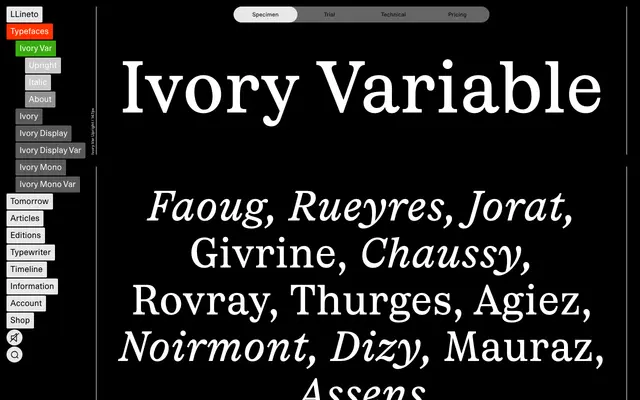
LL Ivory Var
Lineto · Aurèle Sack · 2023
A serif family by Aurèle Sack rooted in 19th-century American wood type, refined through geometric construction and extended into display, text and monospaced cuts.
Initiated in 2016 as a commission for Vogue Hommes Paris, LL Ivory developed from a titling serif inspired by American wood type and poster fonts into a full family spanning display and text grades. Sack reduced contrast and trimmed the serifs for the text version, producing a sturdy, clear-cut body type that retains some extravagance from the display styles. Three monospaced cuts extend the family further, and the whole range carries the surgically precise geometry characteristic of Sack's work at NORM.
Derived from 19th-century American wood type and poster fonts, LL Ivory is a high-contrast serif with pronounced shapes and geometric construction, available in both display and text variants with reduced contrast, and monospaced cuts.